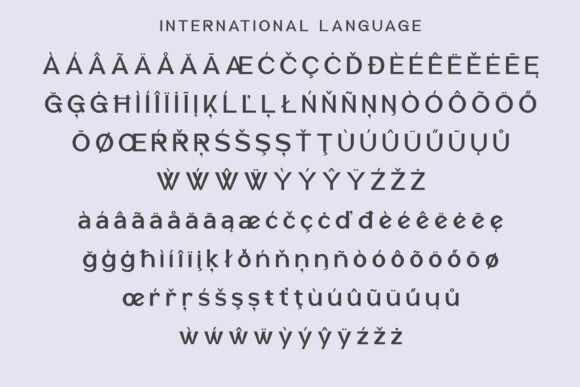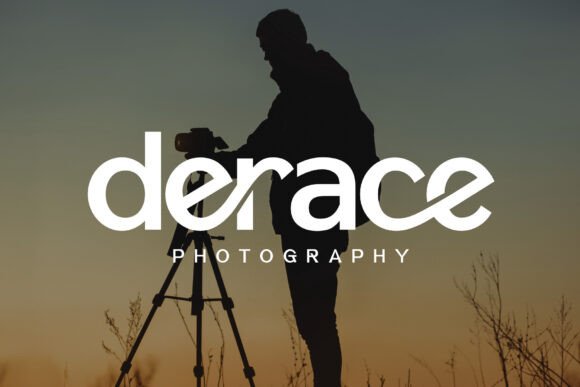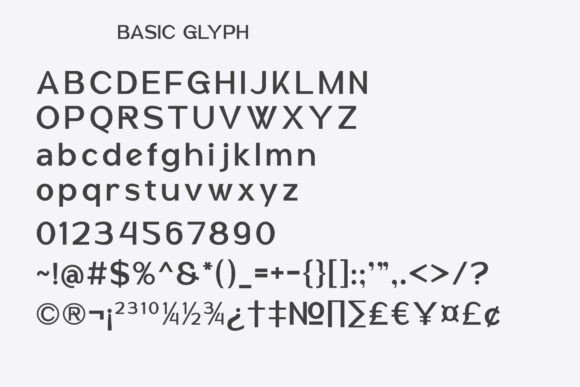
Introduction to Rabsur Font
Introducing Rabsur, a bold and captivating font designed to elevate your brand’s presence.
Perfect for crafting modern, attention-grabbing logos, Rabsur combines clean lines with dynamic aesthetics to ensure your brand stands out .
Key Features of Rabsur Font